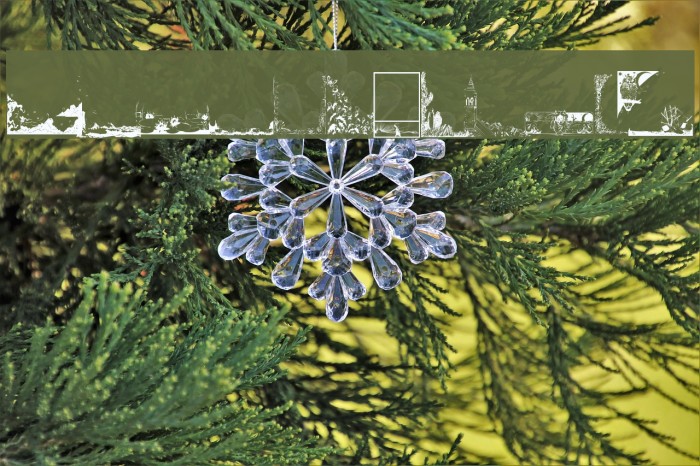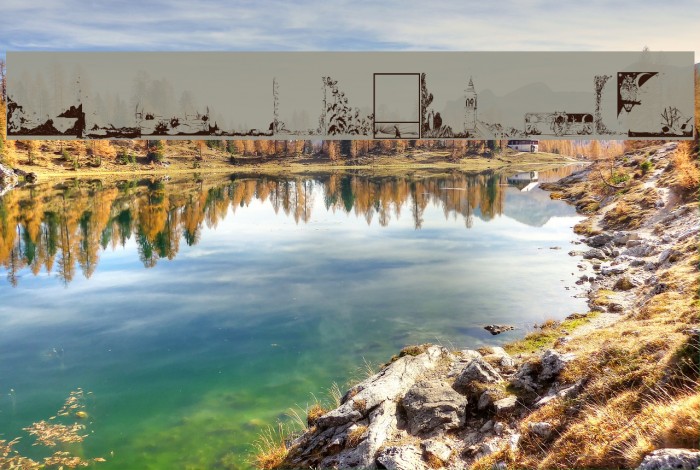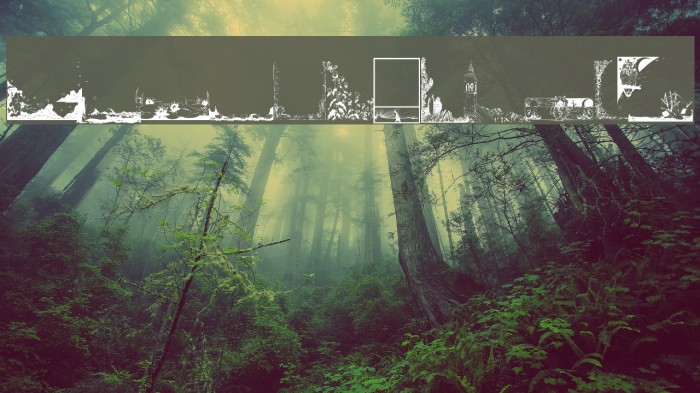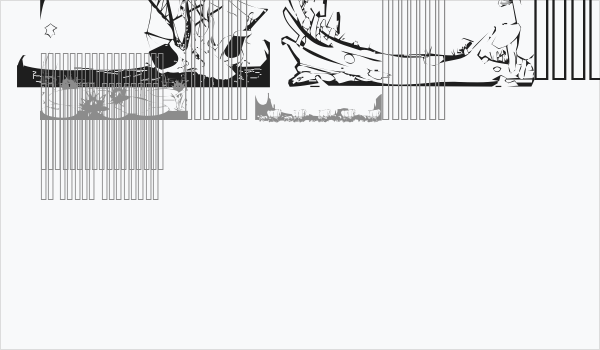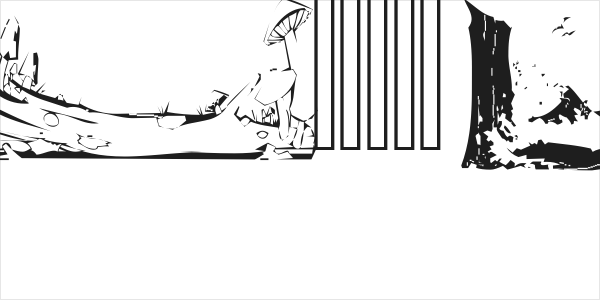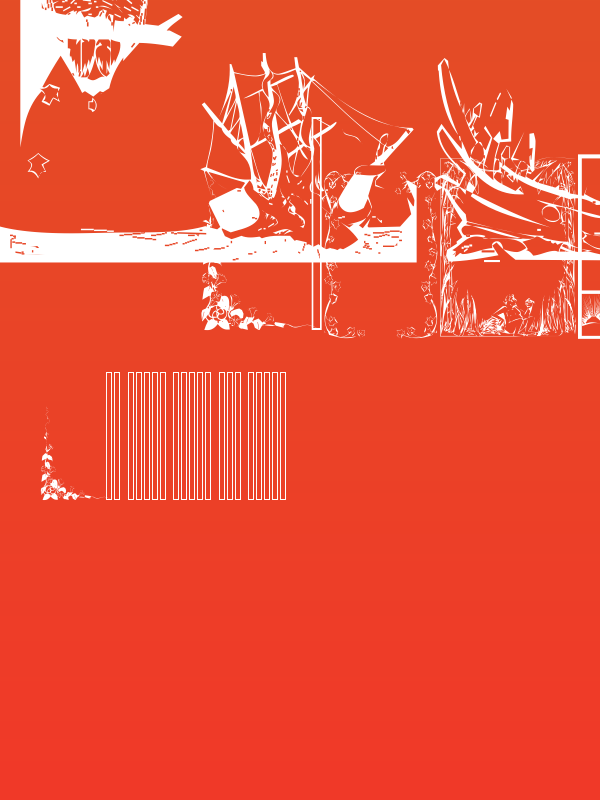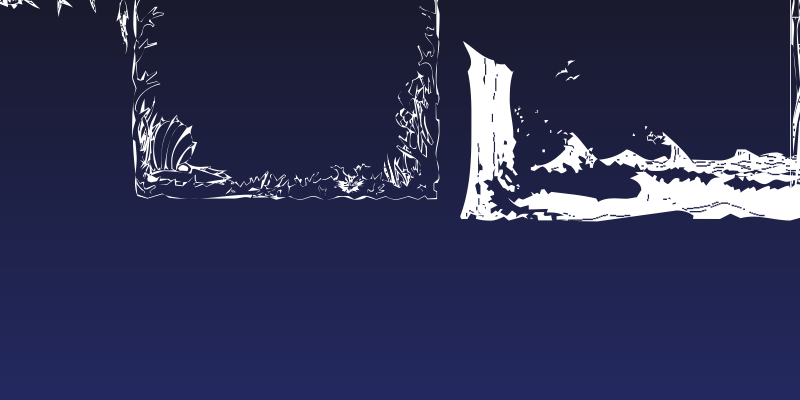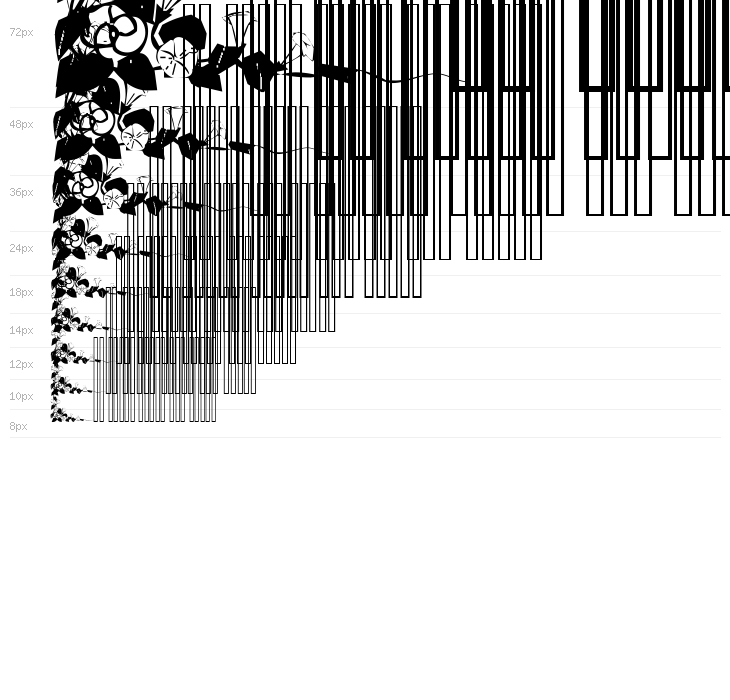
LM Nature Borders Font
LM Nature Borders Description
This font is a decorative and artistic typeface that integrates natural elements into each character. The letters are adorned with intricate illustrations of landscapes, trees, and other nature-inspired motifs, creating a unique and visually captivating appearance. The design is highly detailed, making it ideal for projects that require a touch of elegance and creativity. The font's style is reminiscent of vintage botanical illustrations, offering a sense of nostalgia and charm. It is not suitable for body text due to its complexity but excels in decorative applications.
| Proposed Projects | Ideal for wedding invitations, greeting cards, posters, and artistic projects that require a natural or vintage theme. |